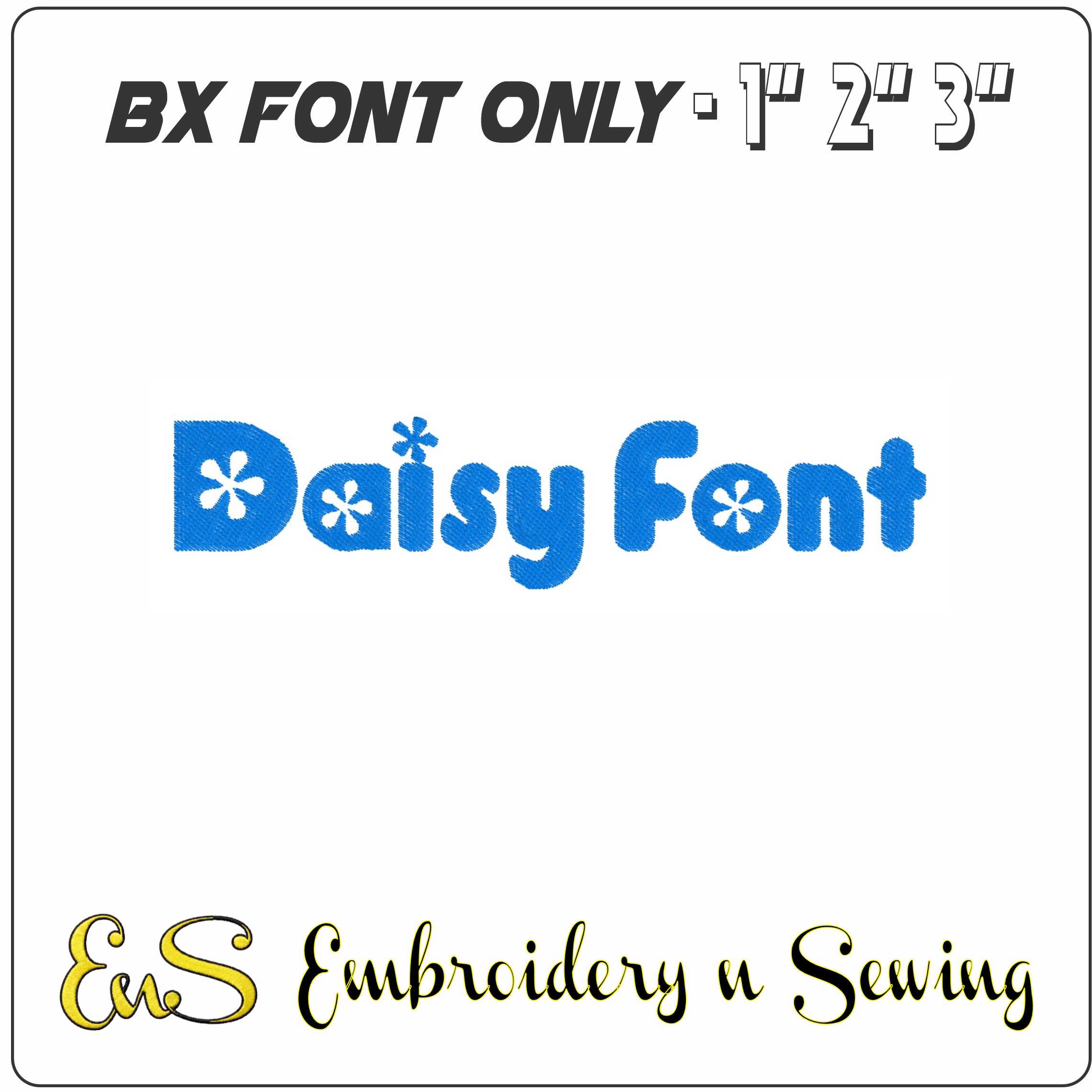
Daisy Font
Soft blue bubble lettering dotted with daisies, giving names and short words a cheerful, playful finish.
Add playful blue lettering to names, nicknames and short phrases with this Daisy Font design. The rounded bubble-style letters are softened with daisy flower shapes, giving the wording a light, friendly look that suits children’s makes, spring projects and anyone who prefers florals over fussy script. If you want text that feels cheerful without becoming sugary, this style lands nicely in the middle.
Because it is offered in smaller sizes, it works especially well where you want wording to be seen clearly without taking over the whole item. Stitch it on baby bibs, children’s T-shirts, sweatshirt chests, pyjama tops, tote bags or the corner of a cushion cover for a neat floral name detail. The simple blue palette keeps the look clean and readable, while the plump letter shapes help the text stand out on plain cotton, sweatshirt fleece and other everyday fabrics.